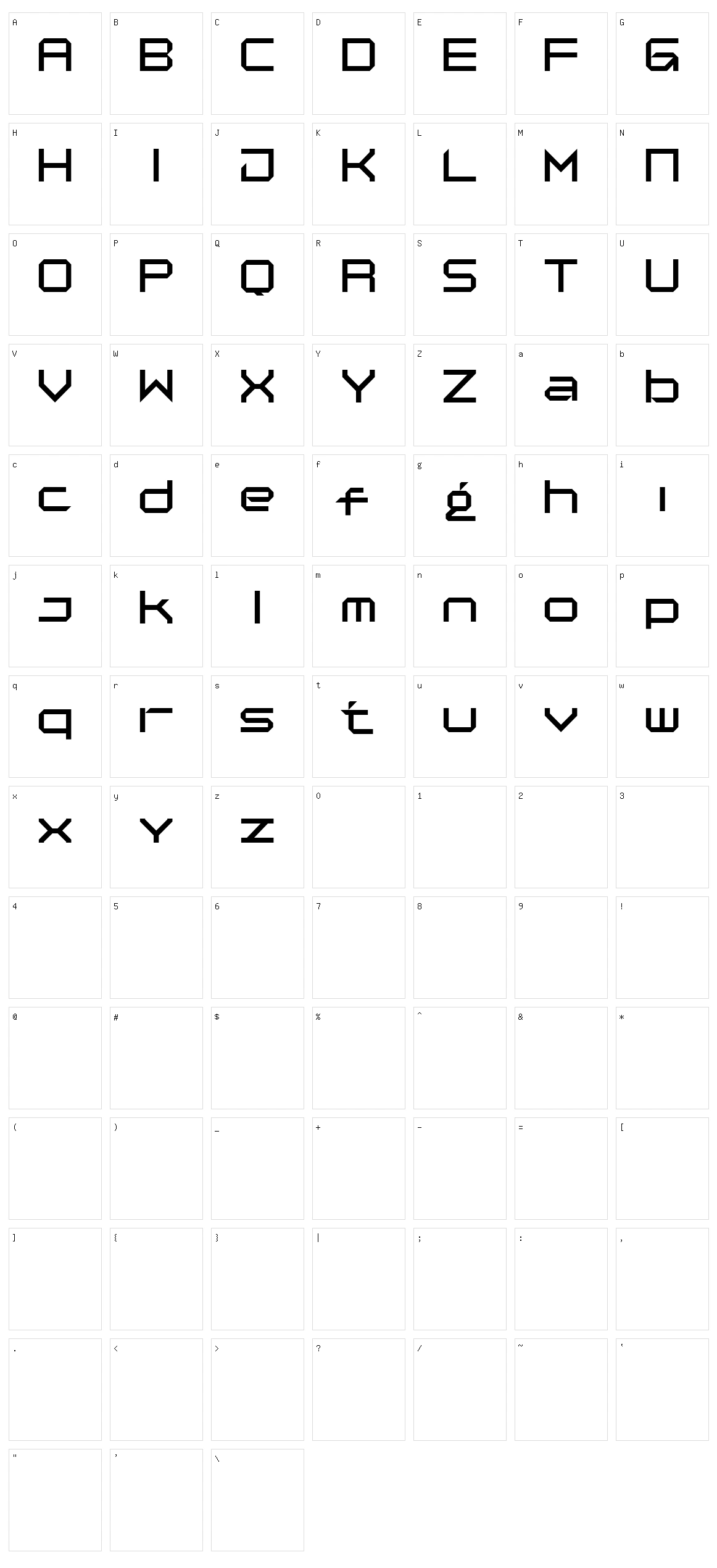
NOTES: THIS IS A DEMO VERSION WITH LIMITED GLYPHS WITH ONLY 2 STYLES (REGULAR AND THIN),
Jx Tabe is New techno sans serif typeface with a superfamily. inspired by robotic, mecha,
and aesthetic machine - a font suited for future technology. This multi-purpose typeface will grab
the reader's attention with its stylish and neat design. With 9 Weight + Italic and 2 Width Condensed
and Expanded, With total of 54 styles, it's a timeless workhorse for many possible applications from
branding to editorial.